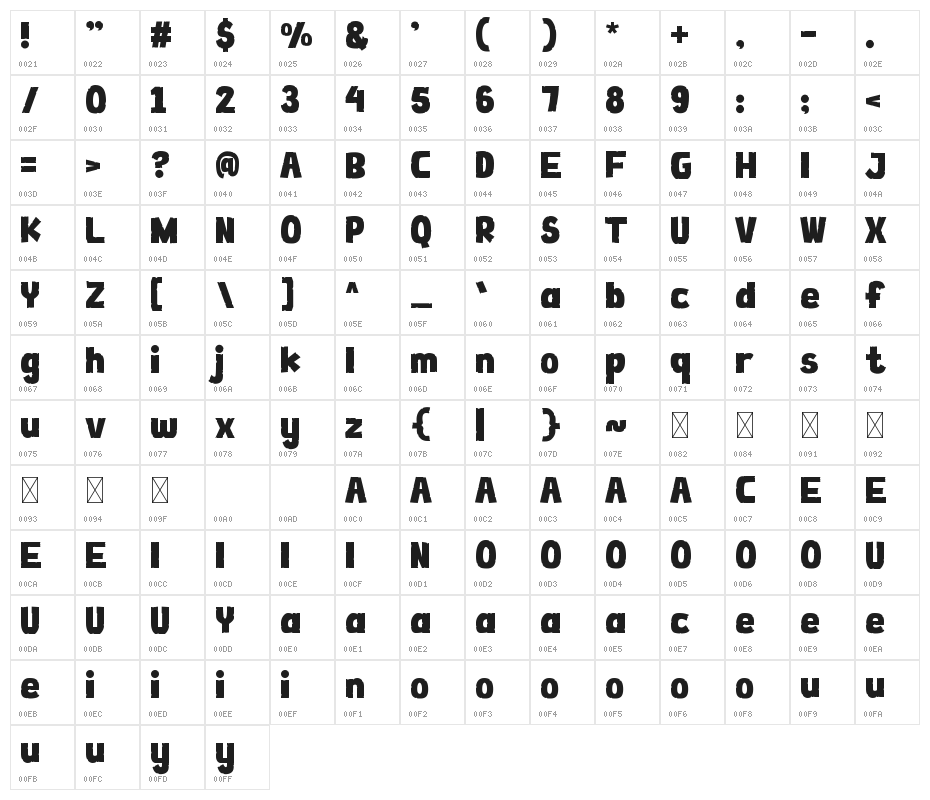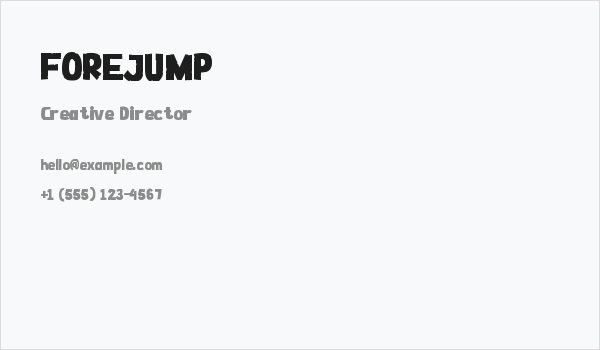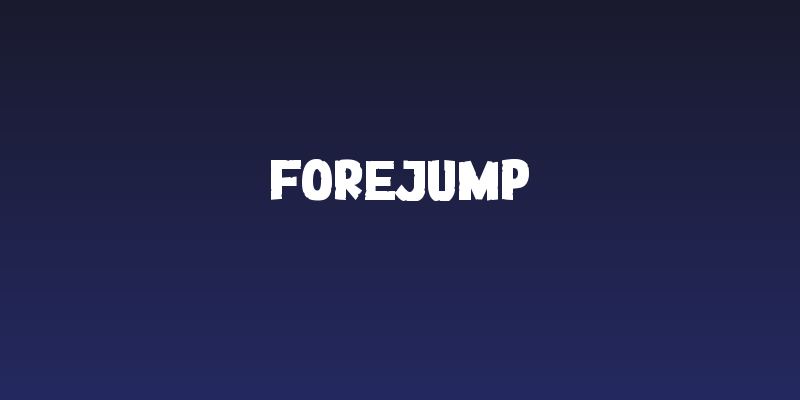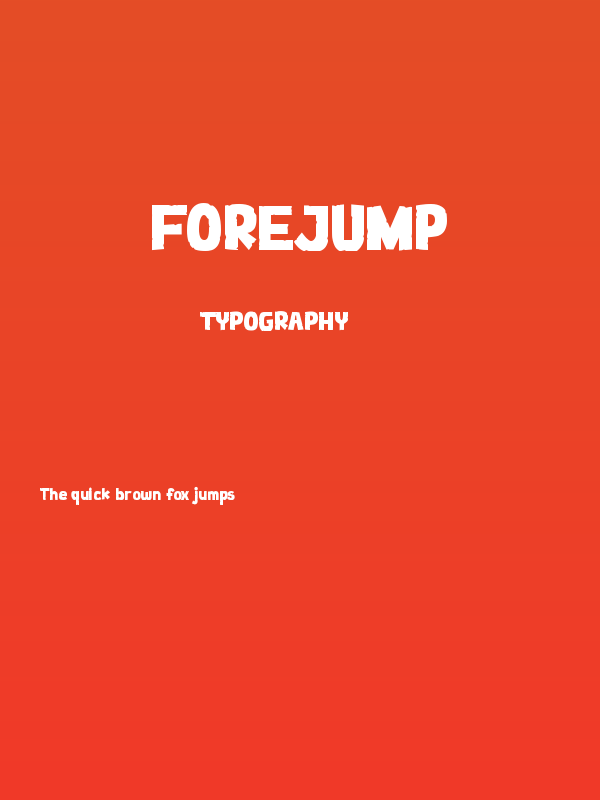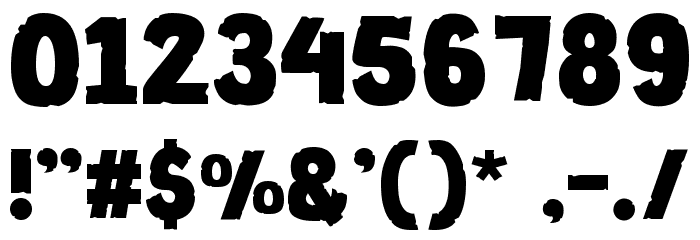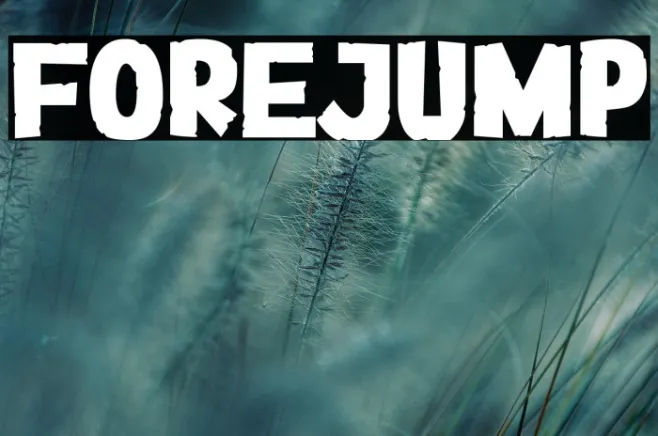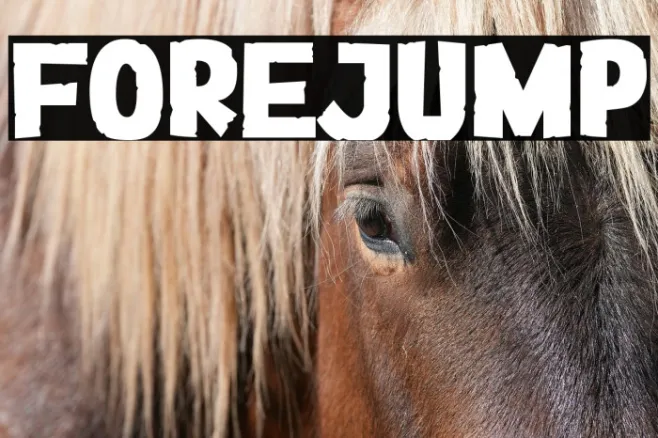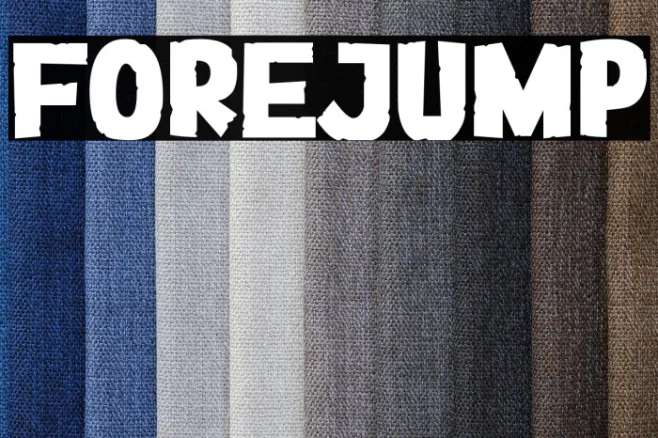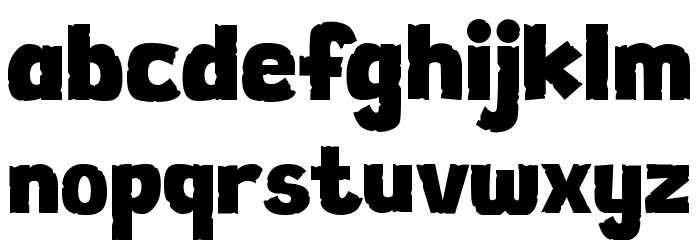
FOREJUMP Font
FOREJUMP Description
This font features a bold and impactful design with a strong presence. The characters are crafted with a slightly irregular, hand-drawn appearance, giving it a unique and playful style. The uppercase letters are robust and commanding, while the lowercase letters maintain a consistent weight and form. The numerals are clear and bold, ensuring readability. Special characters are designed to match the overall aesthetic, providing a cohesive look. This font is perfect for projects that require a fun and energetic vibe.
| Overall Style | Playful, Energetic, Bold |
| Use Case | Headlines, Posters, Branding |
| Proposed Projects | Ideal for posters, headlines, branding, and any project that needs a bold and lively touch. |